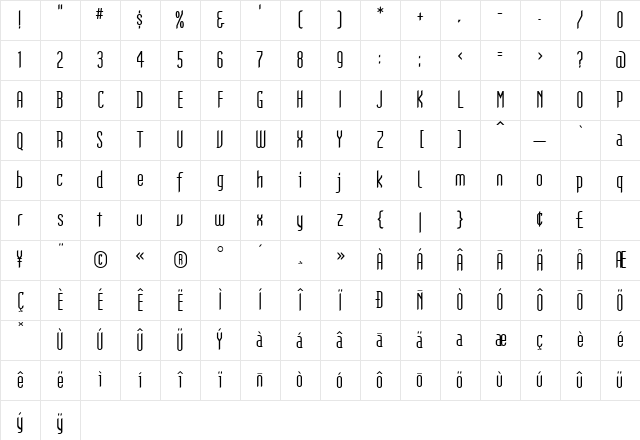
Gothikka Regular Free Font
Gothikka Regular
Foundry: TracerTong / WhoAmI - Sept 2008
Design Context for Gothikka
Gothikka is a composed and adaptable typeface that performs quietly and consistently across a wide range of design contexts.